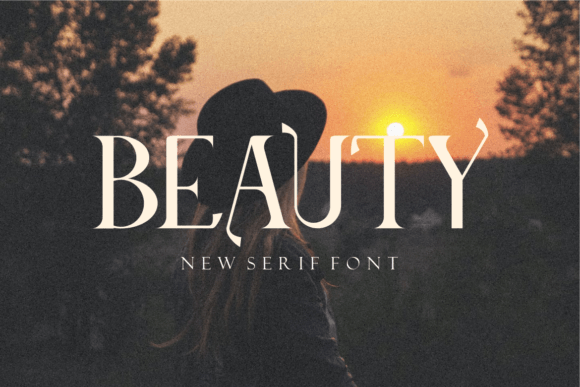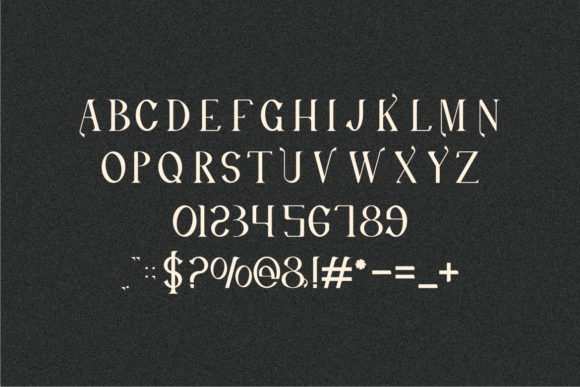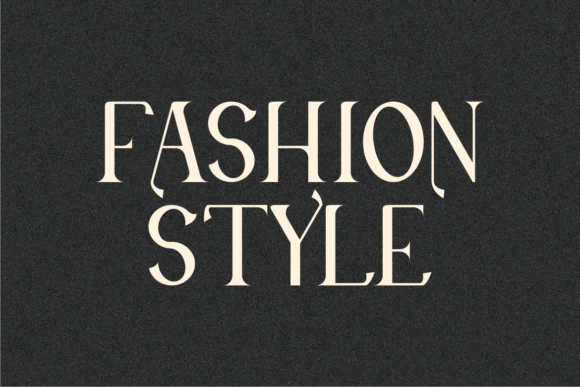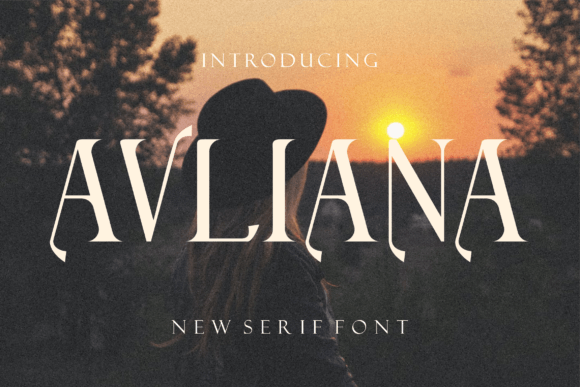
The Elegant Avliana Font: A Designer’s New Best Friend
I still remember the last time I was working on a wedding invitation project, and I just couldn’t seem to find the perfect font. My client wanted something elegant, modern, and classy, but not too over-the-top. I scoured the internet, tried out dozens of fonts, but nothing seemed quite right. That was until I stumbled upon the Avliana font. ✨
It was love at first sight! The serif lines, the elegant curves, and the modern feel all came together to create a font that perfectly captured the essence of the wedding invitation. From that day on, Avliana has become one of my go-to fonts for a wide range of projects.
An Honest Review of Avliana Font
What I Love About Avliana Font
- ✅ Elegant and Classy: Avliana font exudes a sense of sophistication and refinement, making it perfect for high-end projects.
- ✨ Modern Feel: Despite being a serif font, Avliana has a modern feel that sets it apart from more traditional serif fonts.
- 💼 Versatile: Avliana font is perfectly suited for a wide variety of projects, including signatures, stationery, logos, wedding invitations, typography quotes, magazine or book covers, website headers, clothing, branding, packaging design, and more.
- 📚 Readable: The font is highly readable, even at small sizes, making it perfect for body text or captions.
While Avliana font is an excellent choice for many projects, there are a few quirks to be aware of:
- ⚠️ Limited Availability of OpenType Features: Avliana font does not have an extensive range of OpenType features, which may limit its use in certain design applications.
- 🤔 Glyphs and Stylistic Alternates: While Avliana font does have some glyphs and stylistic alternates, they may not be as extensive as some designers would like.
The Backstory of Avliana Font
Avliana font was designed with the goal of creating a elegant and refined serif font that would be perfect for high-end projects. The designer, inspired by classic serif fonts, aimed to create a font that would be both modern and timeless.
Q: What is Avliana font?
Avliana font is a serif font that feels beautiful, classy, elegant, and modern.
Q: What is Avliana font best used for?
Avliana font is perfectly suited for a wide variety of projects, including signatures, stationery, logos, wedding invitations, typography quotes, magazine or book covers, website headers, clothing, branding, packaging design, and more.
Q: Is Avliana font available in different styles?
Avliana font may be available in different styles, such as italic or bold, but the exact styles available may vary depending on the font package or vendor.